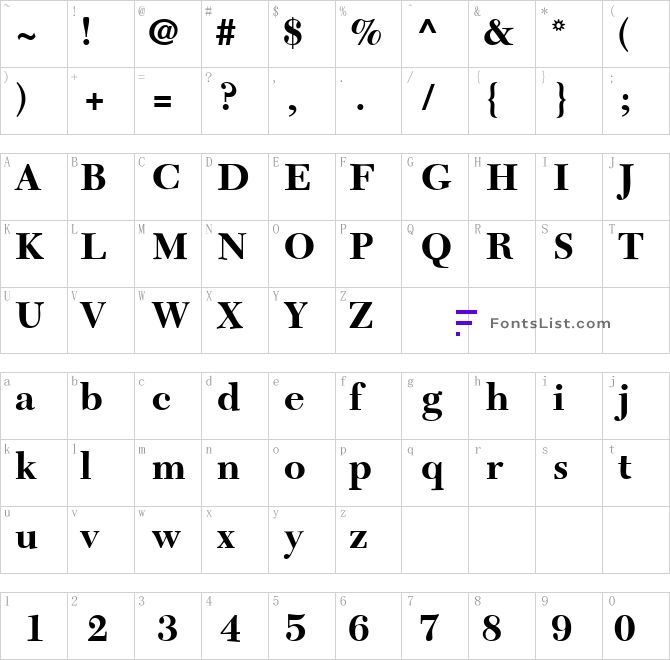
- Font Name:CalendarNova
CalendarNova-Bold.ttf is a very beautiful artistic font, CalendarNova-Bold.ttf is widely used in the design and printing of various books and pictures,CalendarNova-Bold.ttf has a strong visual impact,CalendarNova-Bold.ttf is a commonly used font in newspapers, magazines and books, and is used in posters, e-commerce Poster design, store design, logo design, font design and other fields.CalendarNova-Bold.